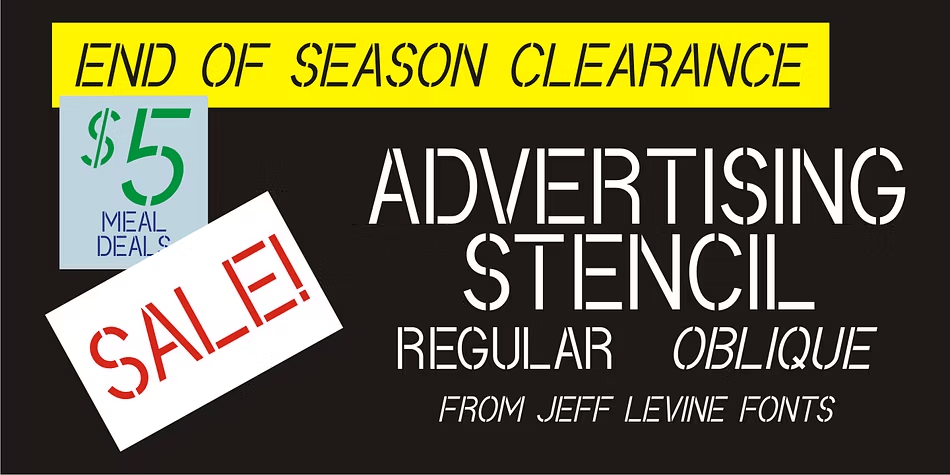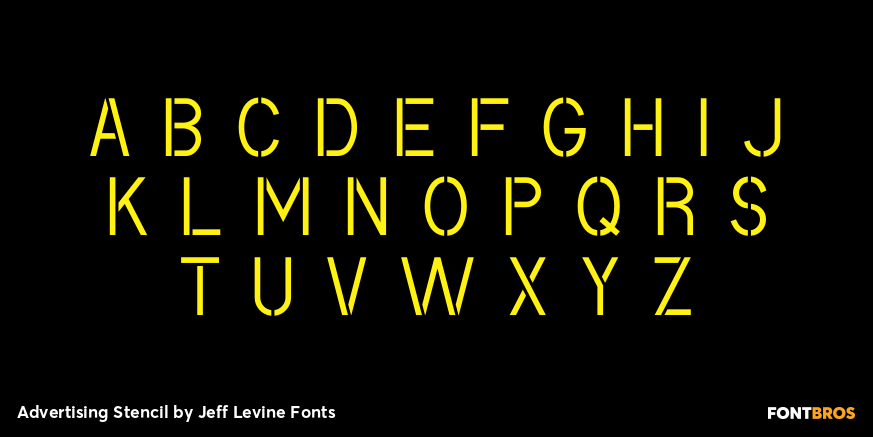
Advertising Stencil
Buy NowAn ad spotted in a 1964 issue of Billboard magazine with the words 'STAND BACK…” introduced the first record album from then-new stand-up comedian Bill Cosby.
The lettering of those two words was in a stencil sans serif design that was a perfect candidate for developing into a digital font.
The end result is Advertising Stencil JNL, which is available in both regular and oblique versions.